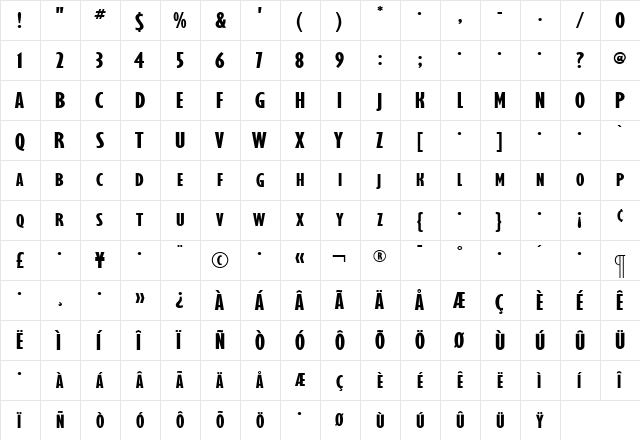
GilmoreSansExtBolExtCondTitl Roman
Design Context for GilmoreSansExtBolExtCondTitl Typeface
GilmoreSansExtBolExtCondTitl takes a measured approach to typography — its balanced proportions and neutral character make it a reliable workhorse for both digital and print work. Its narrow stance lets it pack a punch even in space-constrained designs.
Pro Tip: Use GilmoreSansExtBolExtCondTitl in both headline and body roles to test its range before committing to a single application.